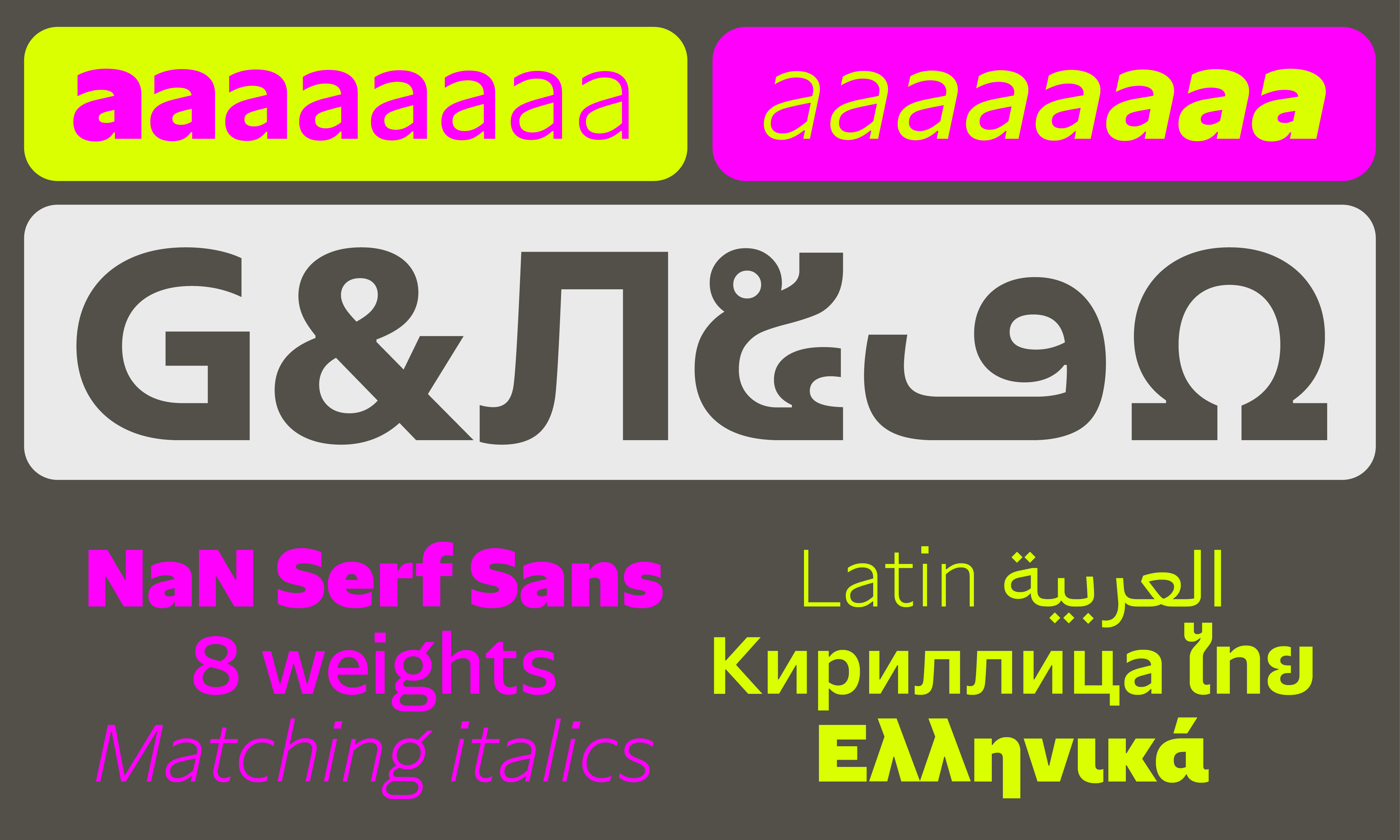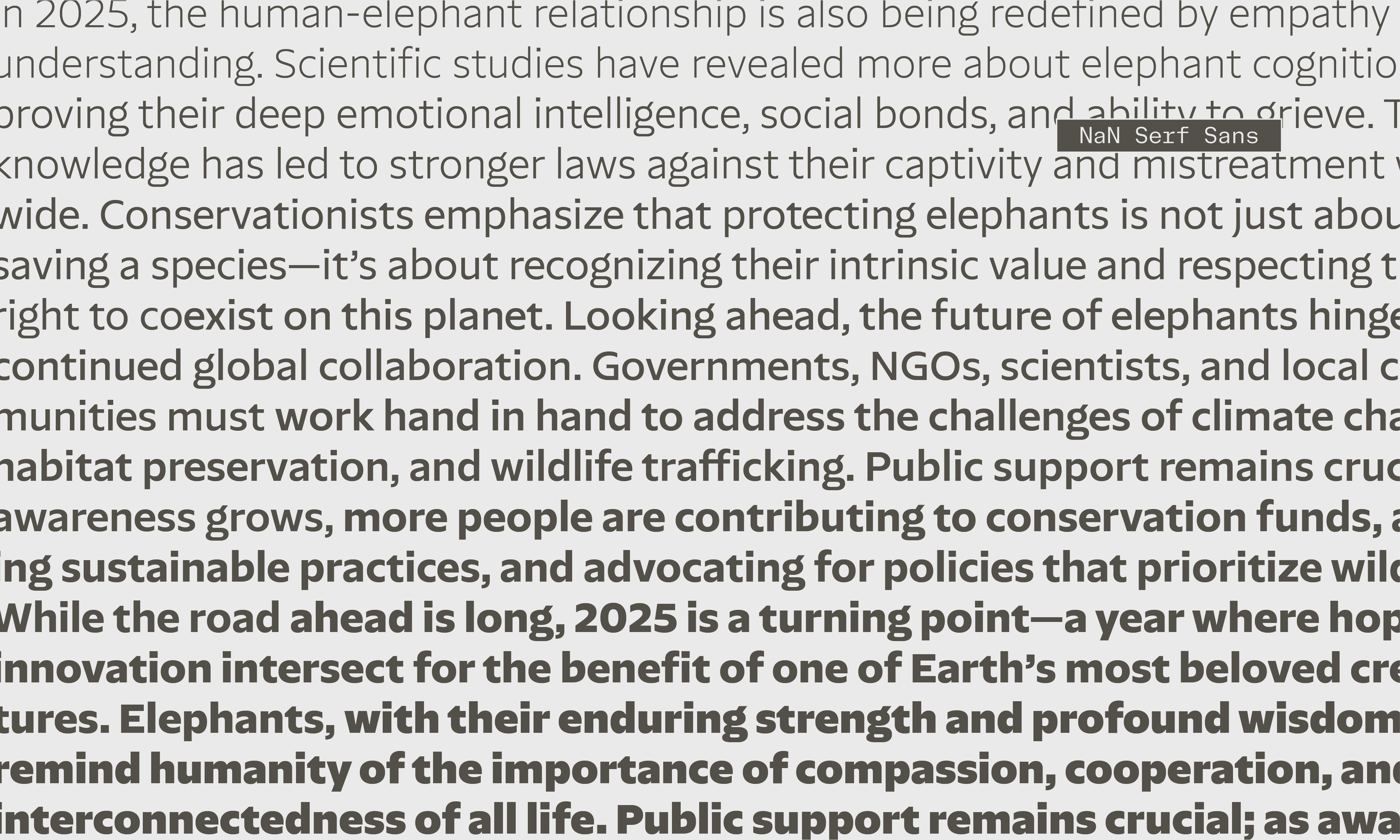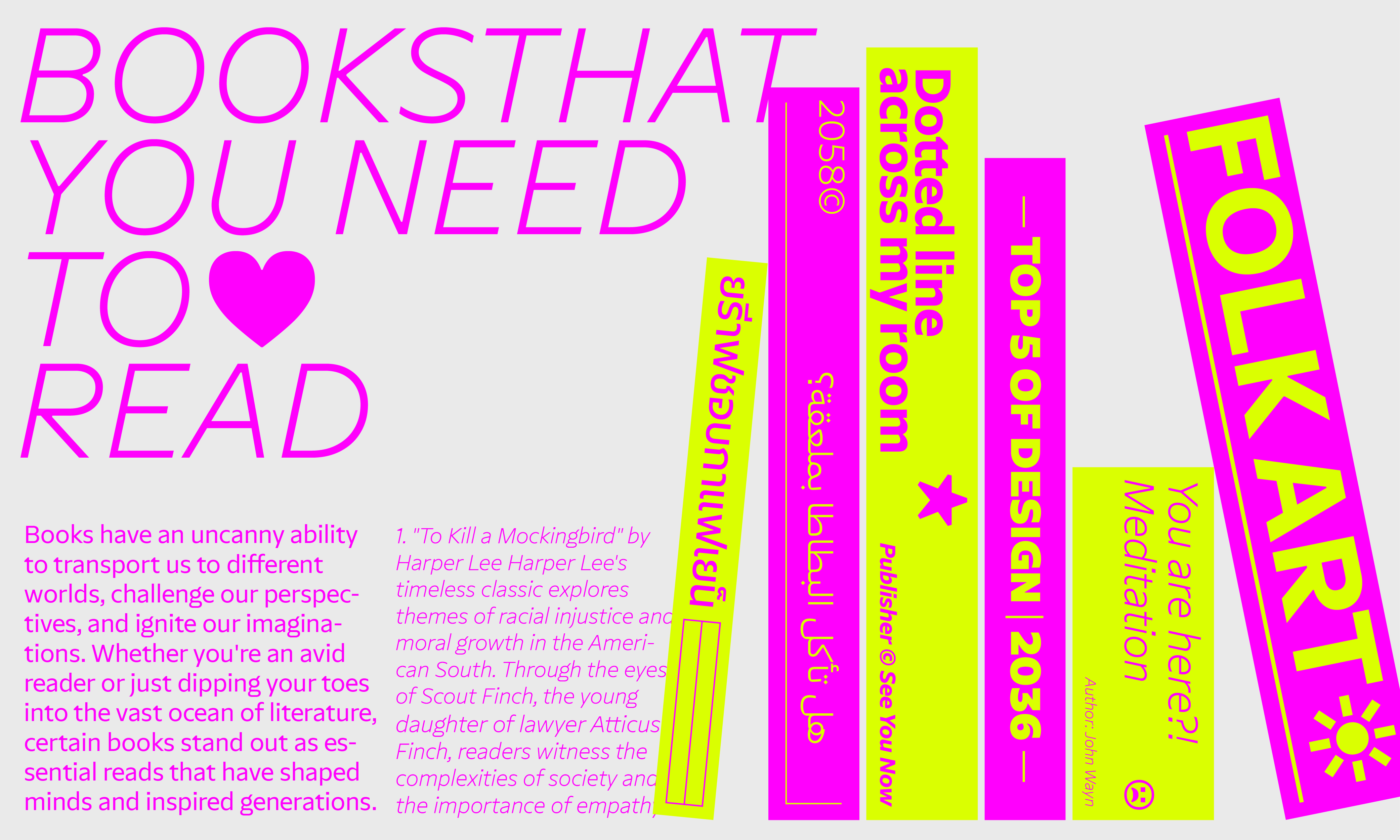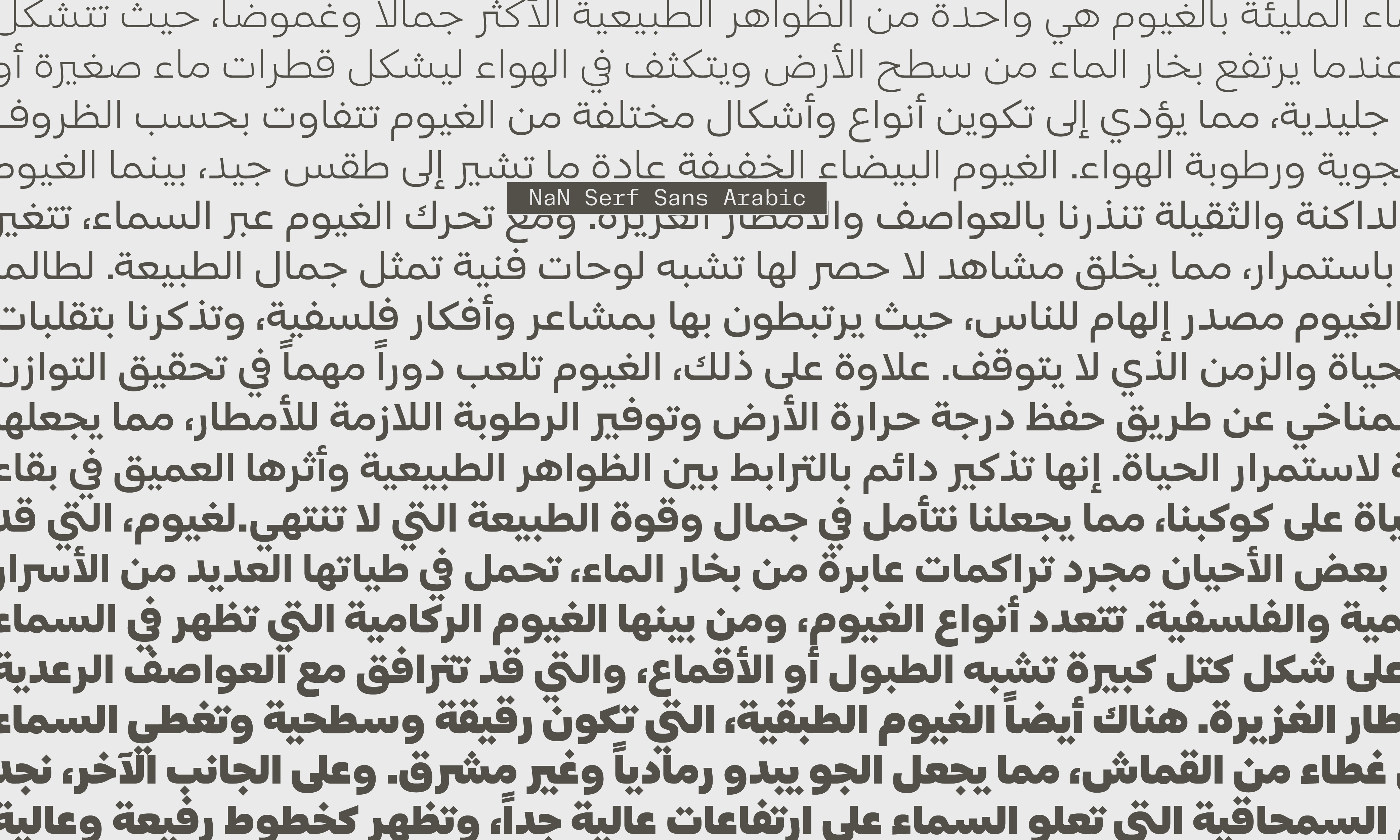
About NaN Serf Sans
NaN Serf Sans is NaN’s crisp and ultra-legible humanist sans. Based on the skeleton of NaN Serf, it keeps some of its distinctive detailing like the flat curves of the /G, /b and /q and replaces Serf’s serifs by clean vertically-cut endings. Most choices in NaN Serf Sans are dictated by clearness, flow and legibility, making it a text-first workhorse designed to thrive on screen.
With its vertical endings, Serf Sans offers very big opening and generous counters. Our team took a particular attention to its rhythm, giving a generous and crisp flow on the page and the screen. With modern needs in mind, Serf Sans was created with 5 scripts out of the box, serving more than 550 languages (see PDF specimen for detailed language support).
Typeface: NaN Serf Sans
Designed by NaN